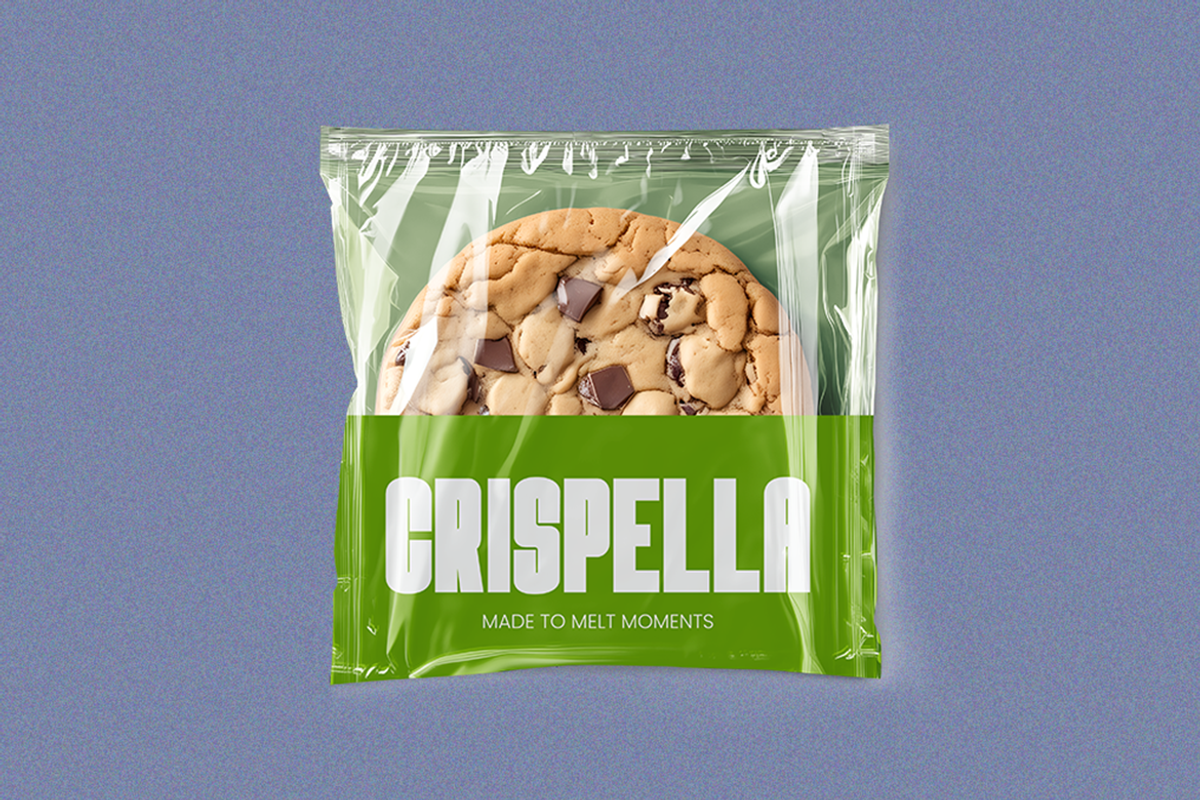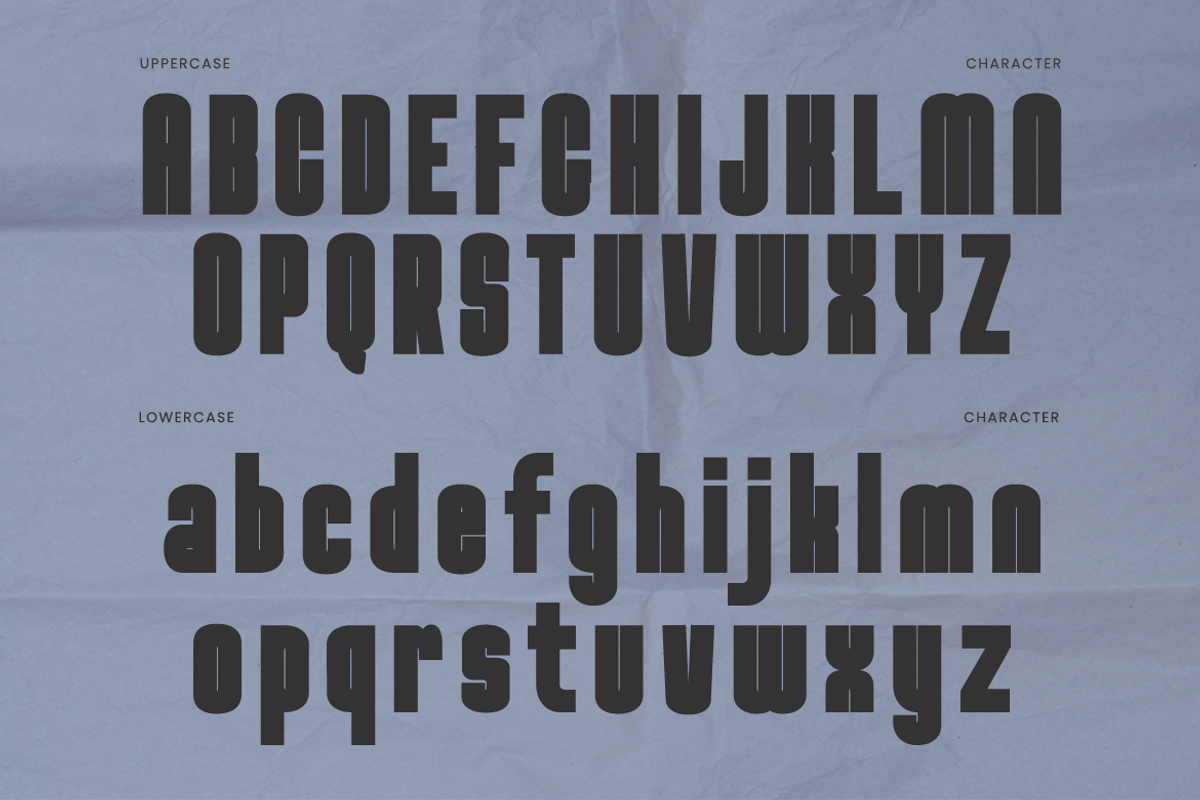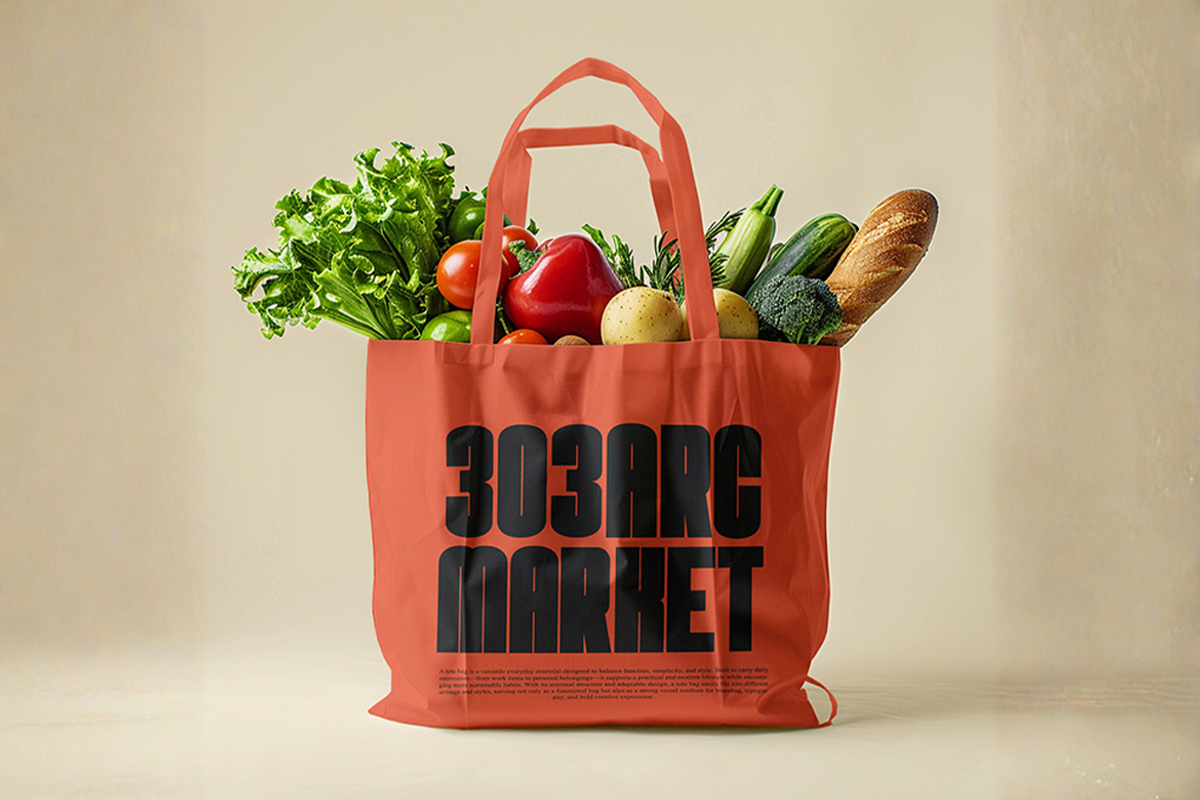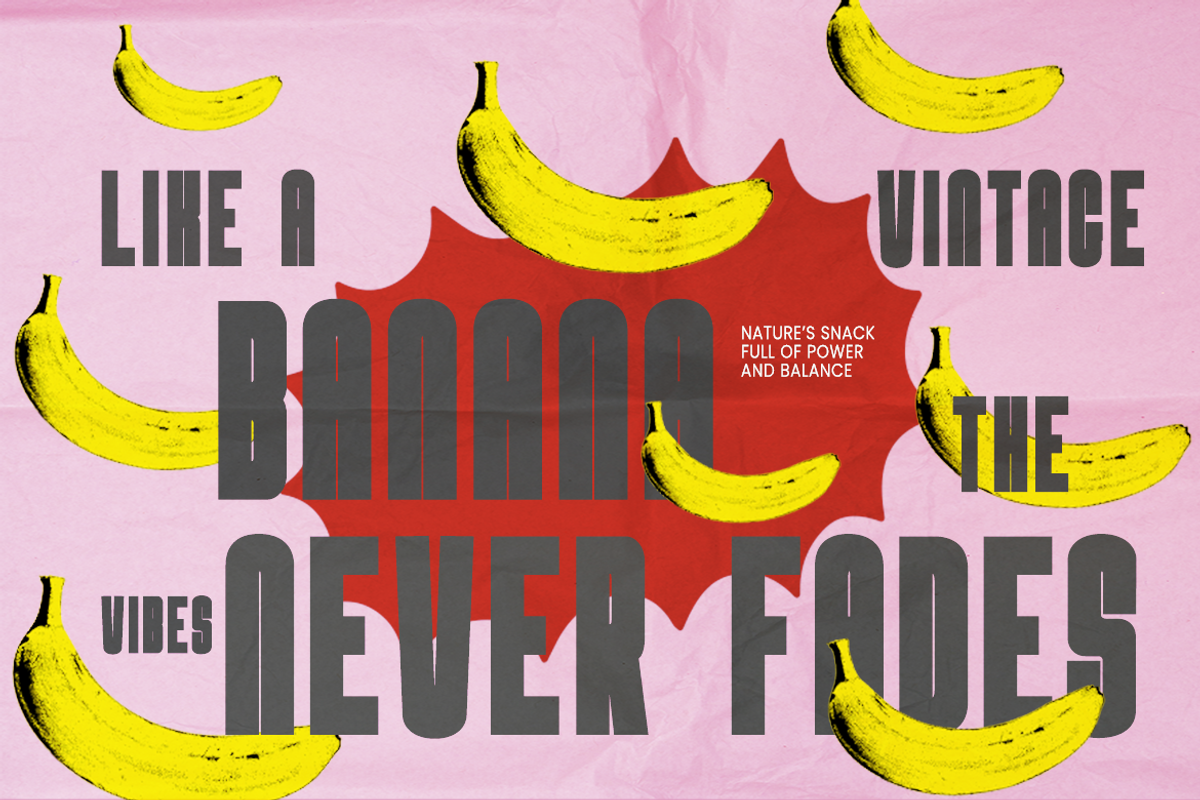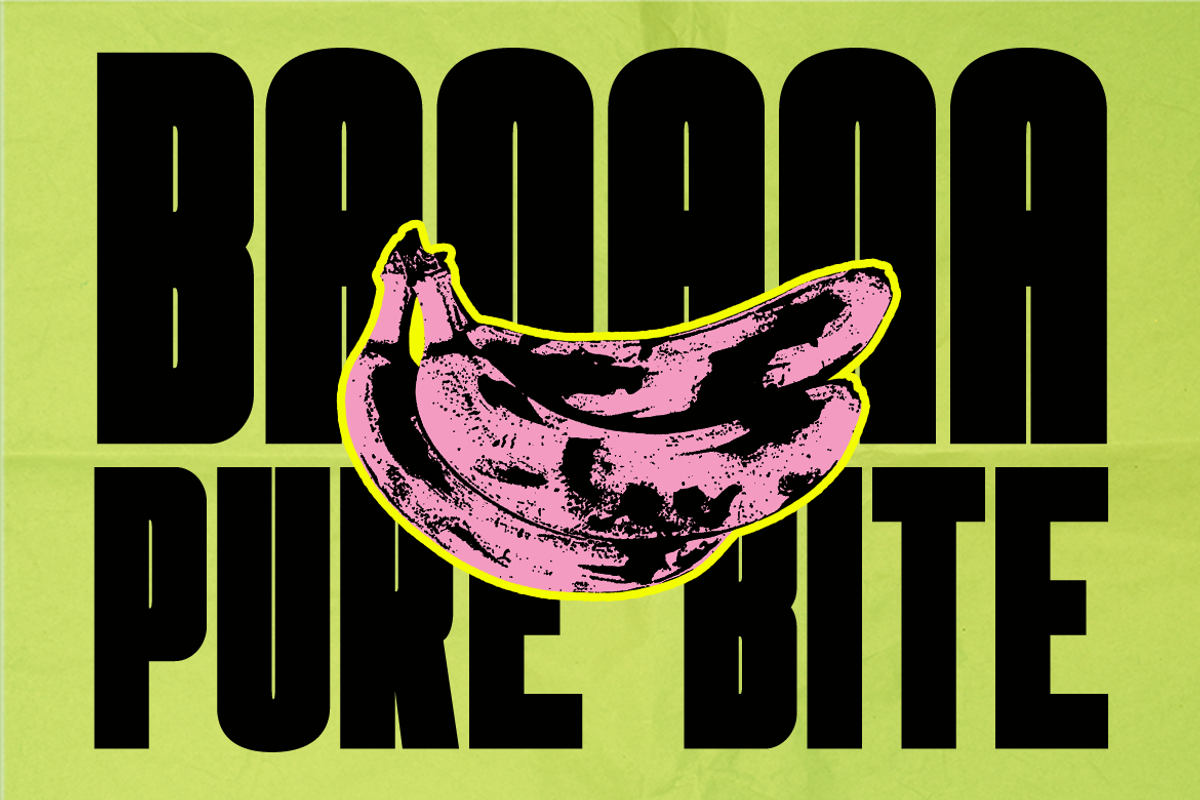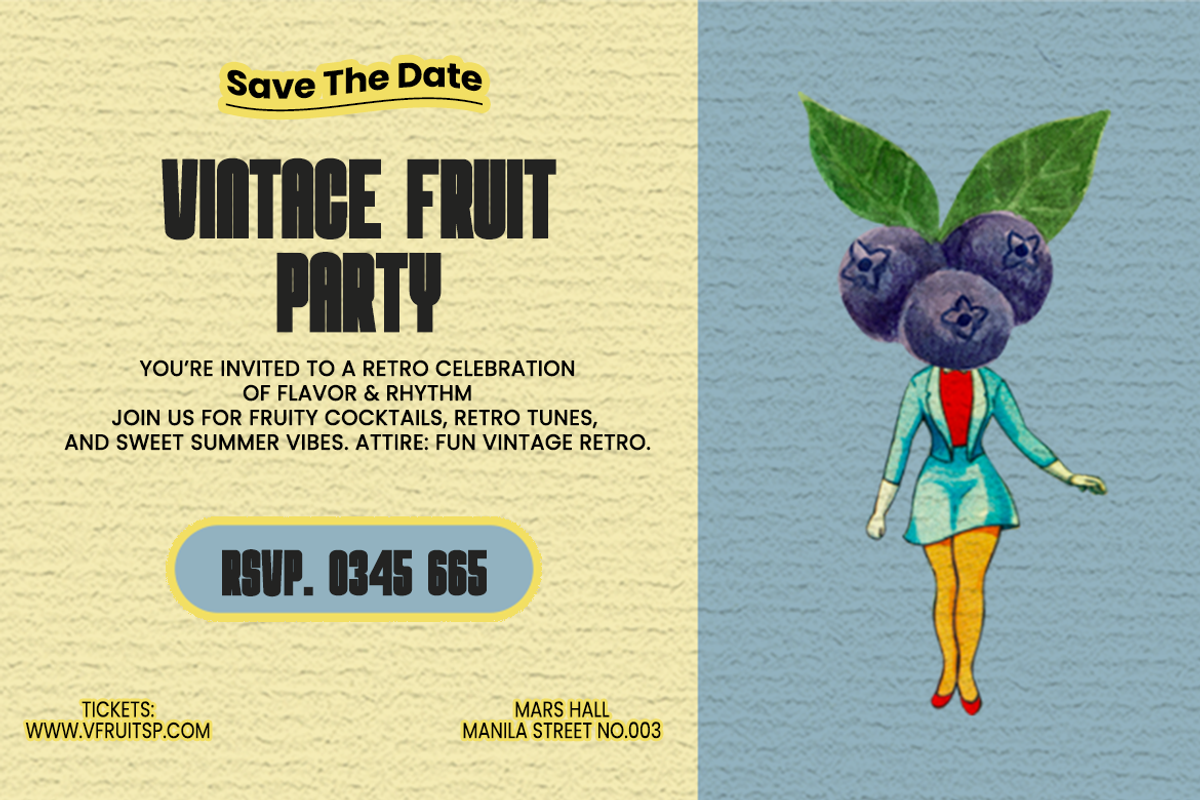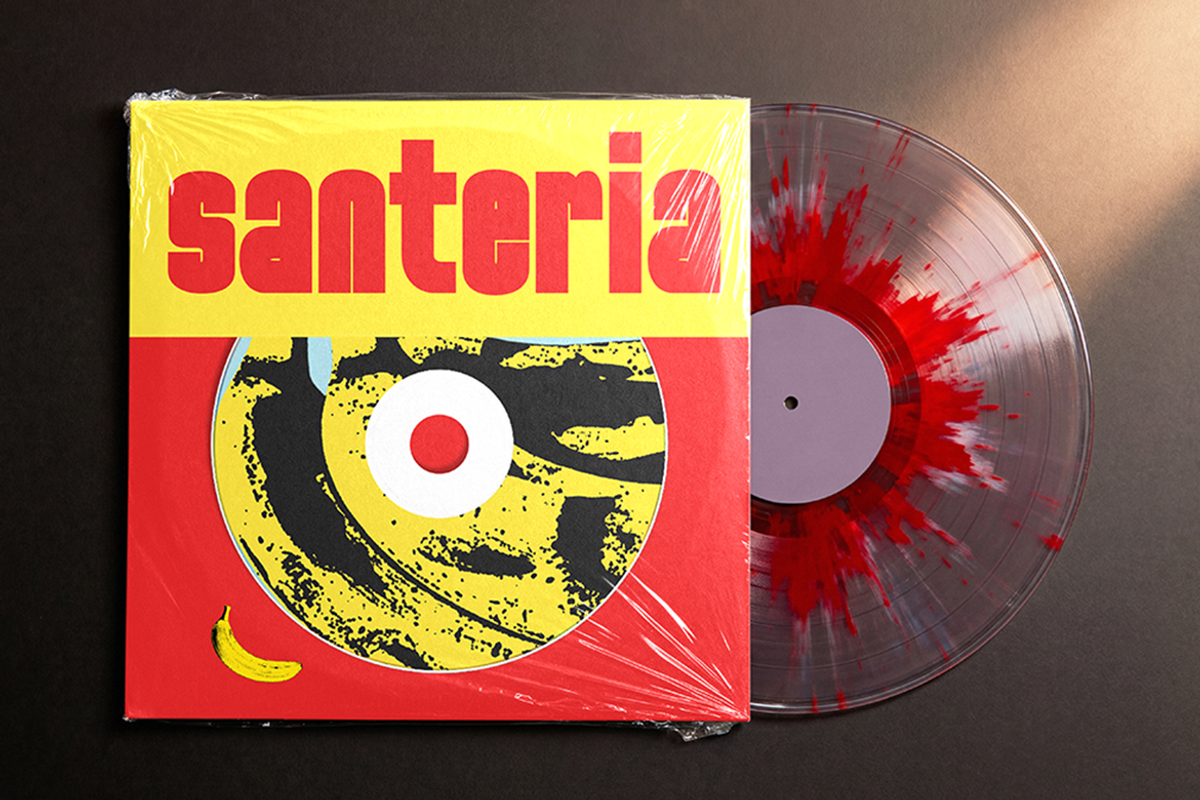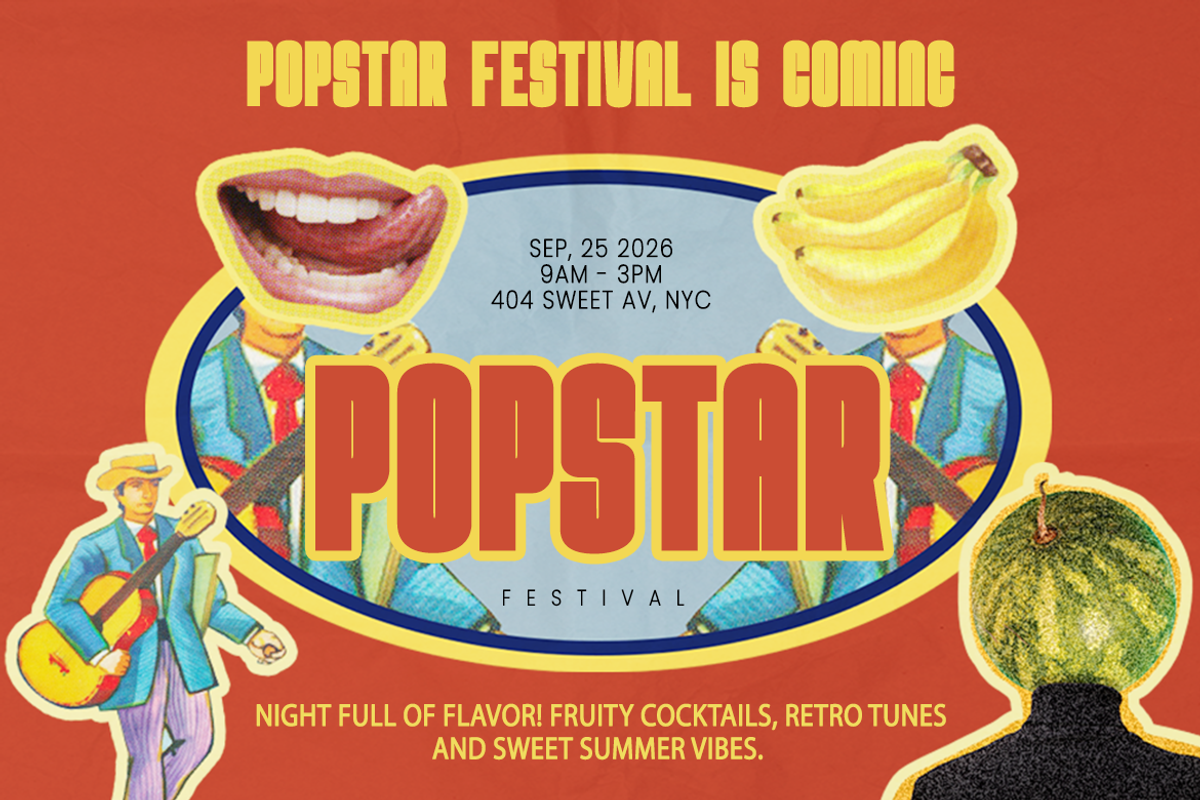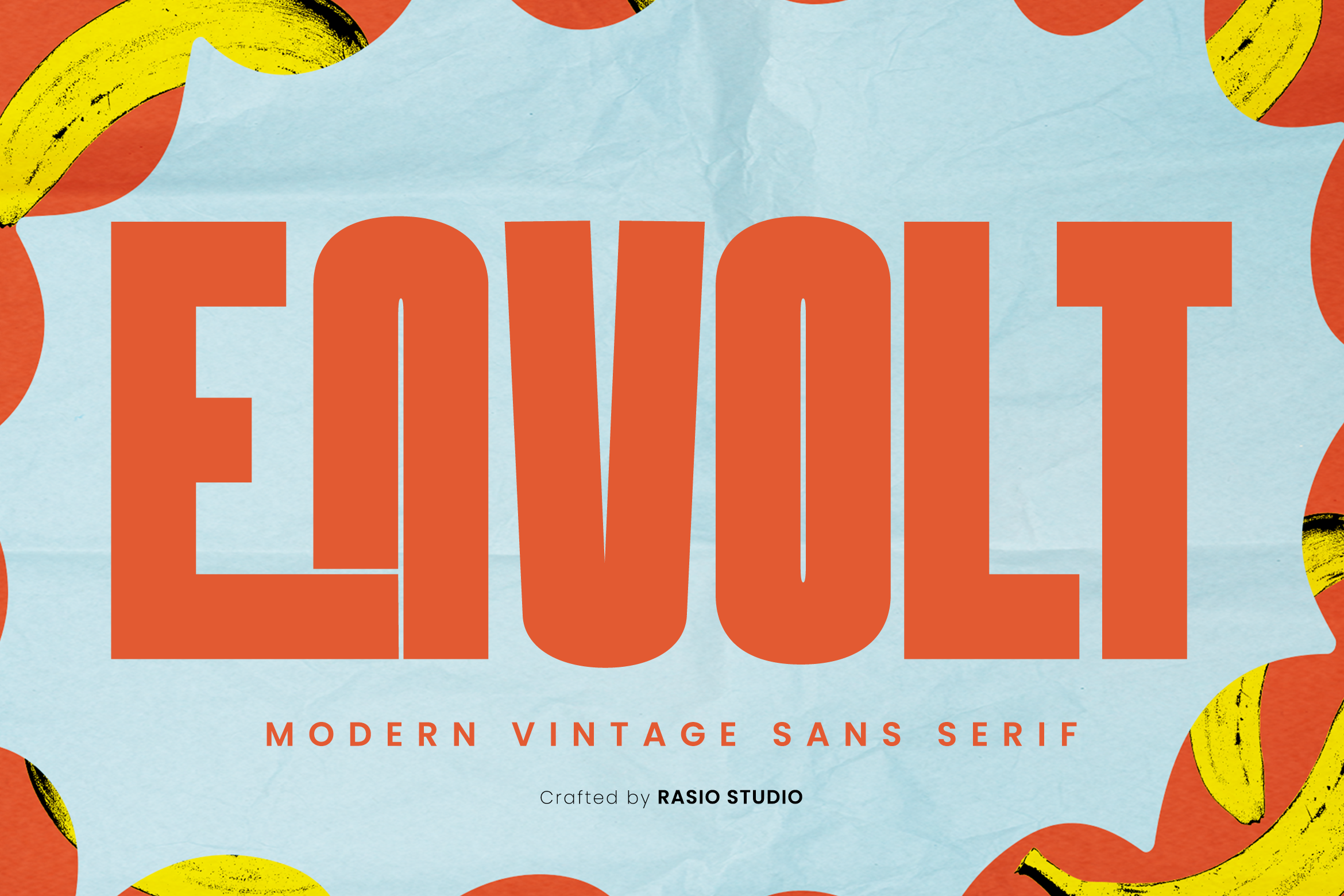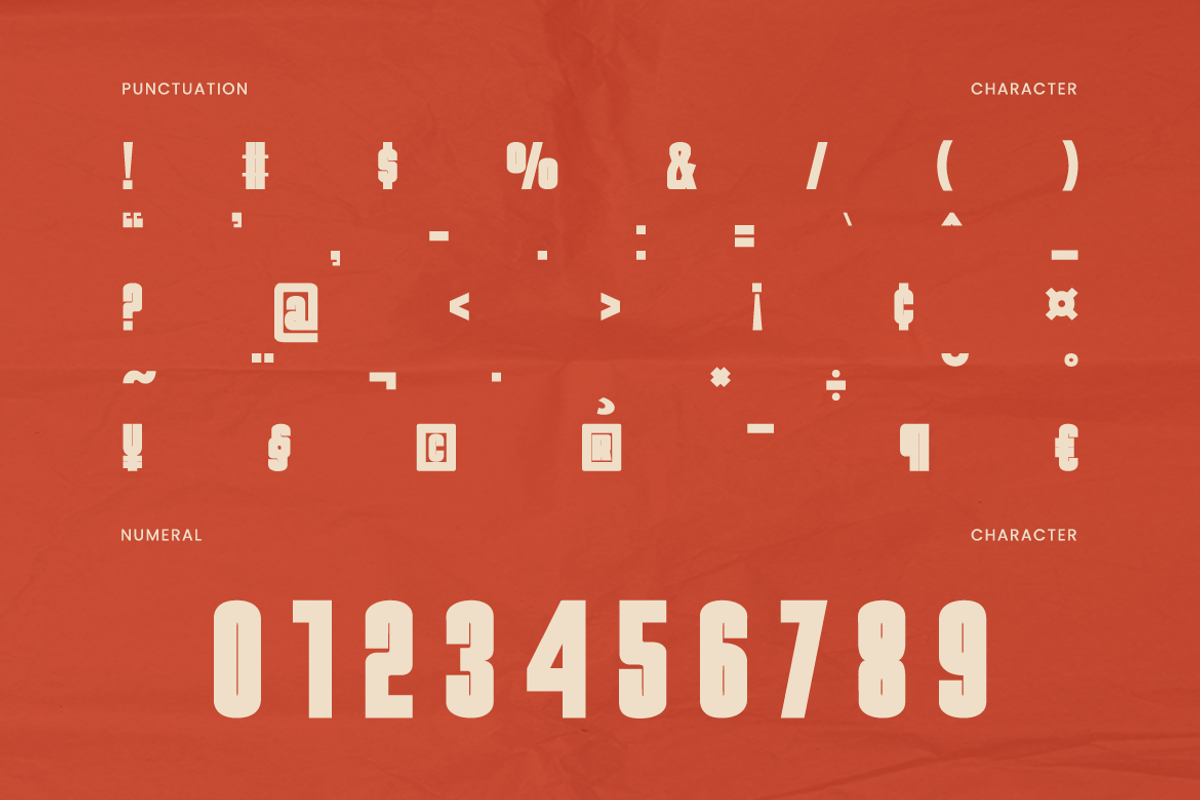
Envolt Modern Vintage Sans Font
Envolt Retro Condensed Display Font showcases a bold, high-impact sans serif with a vintage-inspired condensed structure and strong geometric presence. The letterforms feature thick vertical strokes, tight spacing, and slightly softened edges that create a powerful yet approachable retro aesthetic. Includes uppercase, lowercase, numerals, and punctuation with consistent alignment and clean construction.
Relevance and Use Cases is perfect for retro-themed branding, posters, editorial headlines, event promotions, packaging, and advertising designs that require a bold, condensed, and highly visible typographic presence with a vintage-modern appeal.
Bold vintage sans serif with tall condensed proportions
Rounded corners combined with strong geometric construction
Retro-inspired letterforms with playful modern styling
Heavy stroke weight for impactful headline appearance
Distinctive vertical curves and smooth rounded counters
Retro poster layouts and vintage-inspired branding projects
Food packaging and beverage labels with bold nostalgic appeal
Music covers, festival graphics, and expressive promotional materials
Fashion branding and merchandise with playful modern vintage style
Social media templates and advertising banners with eye-catching typography
Supports numerals, punctuation, and extensive symbol set